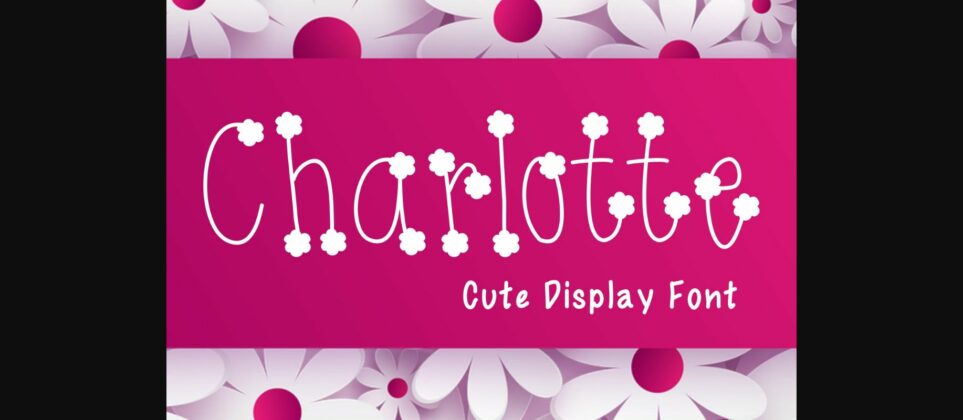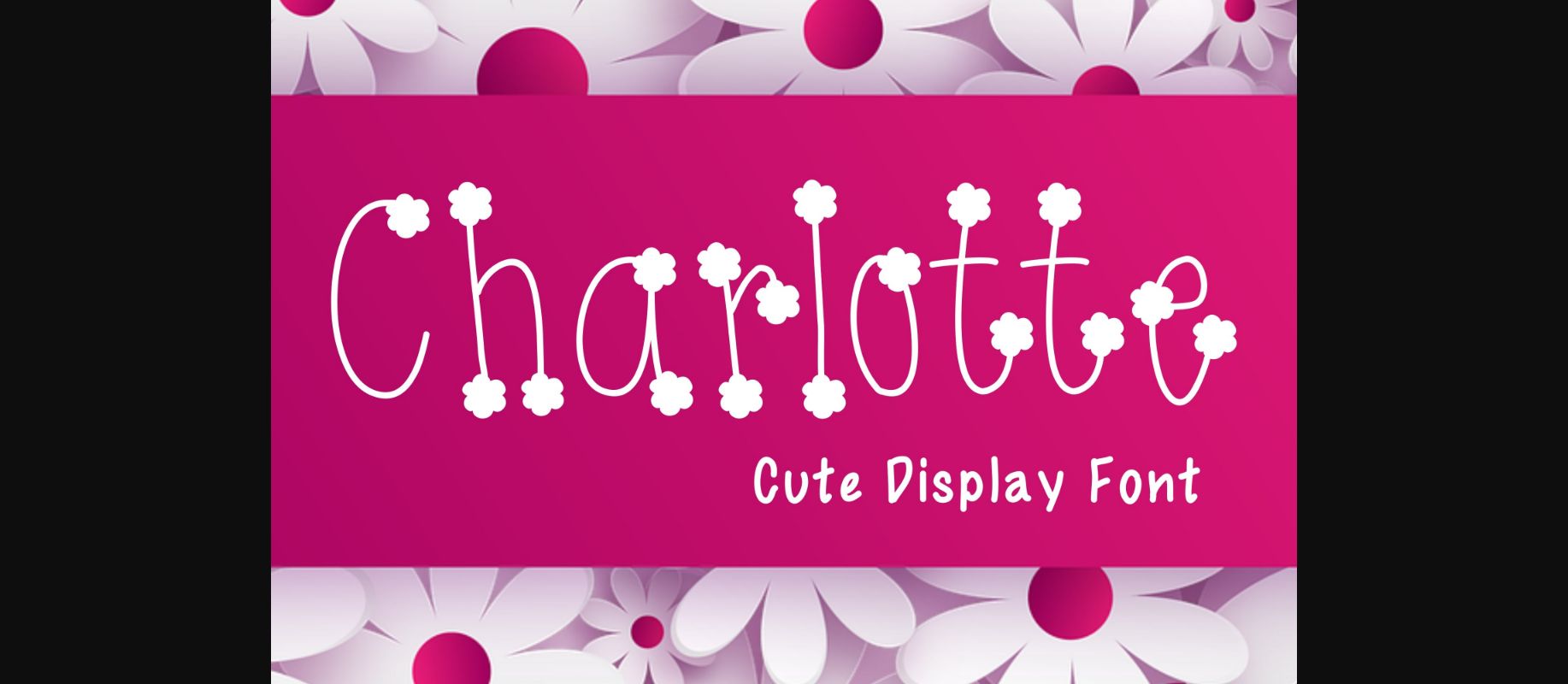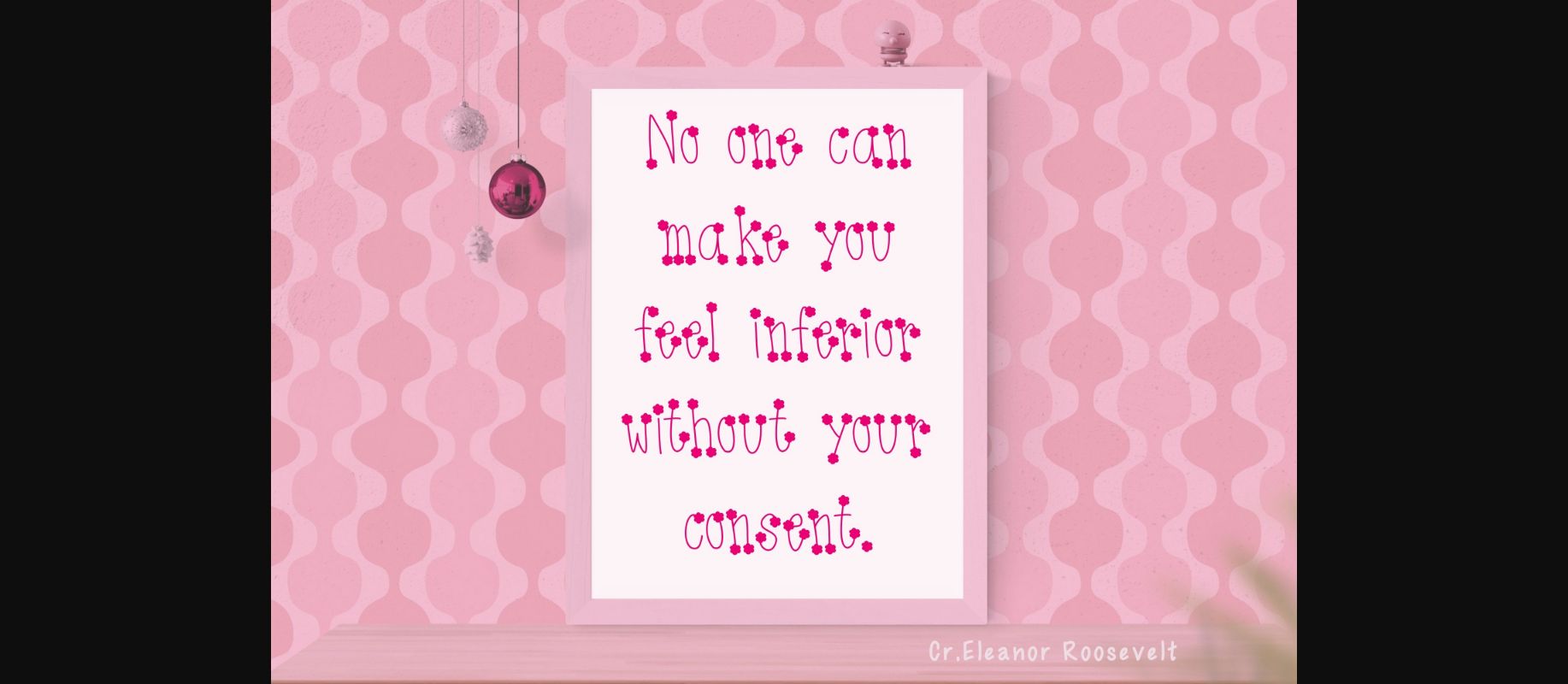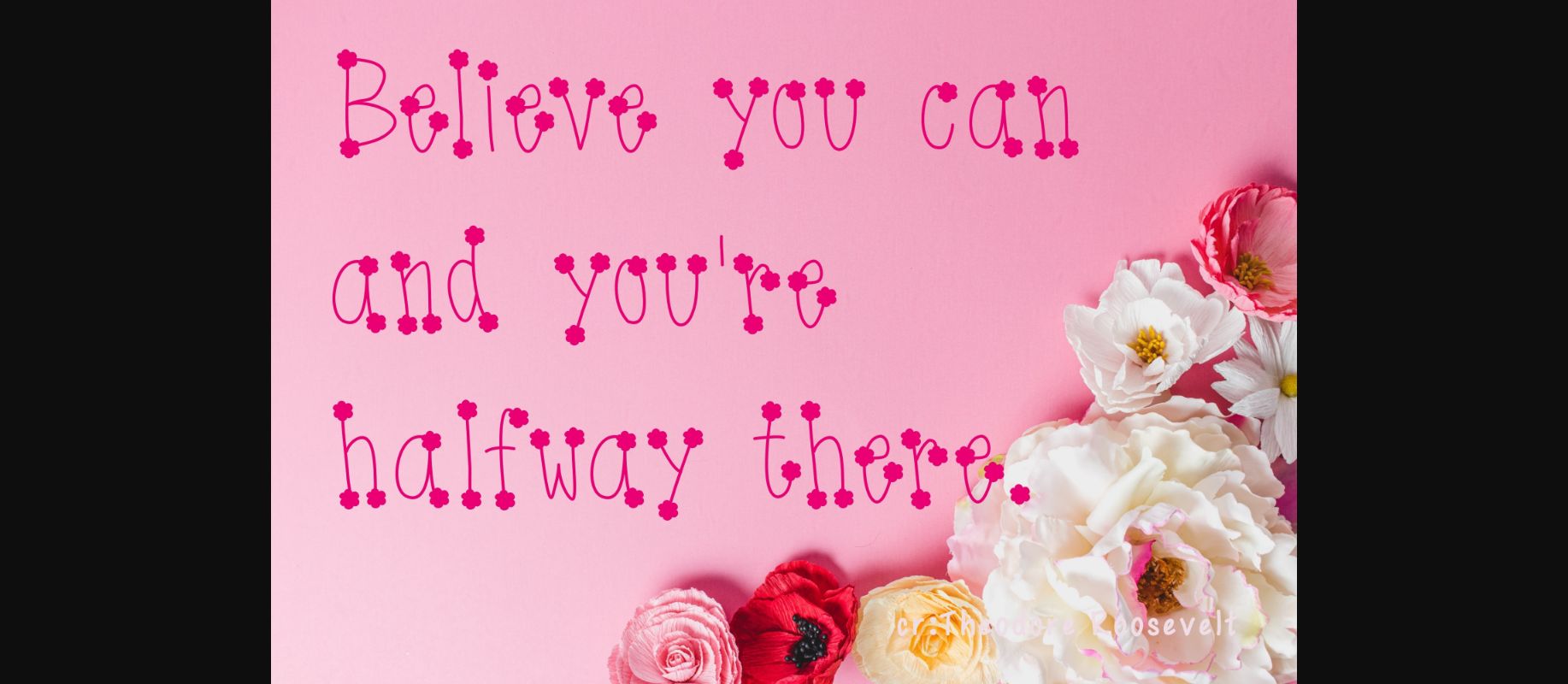
About Charlotte Font
Charlotte is a unique and interesting decorative font, featuring tiny little flowers as ornaments. Whatever the topic, this font will be a wonderful asset to your font library, as it has the potential to enhance any creation.